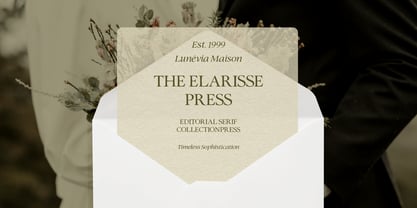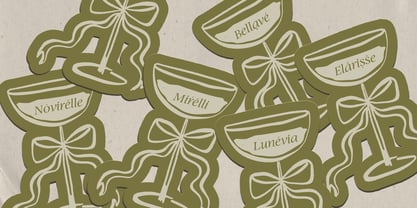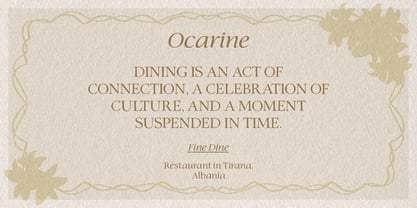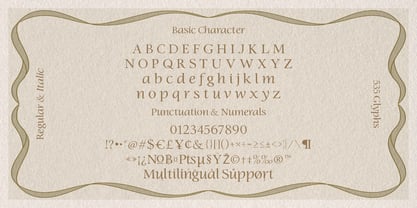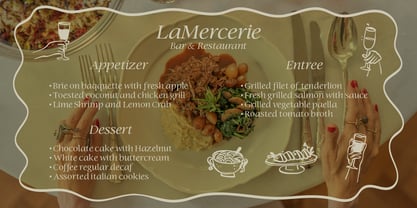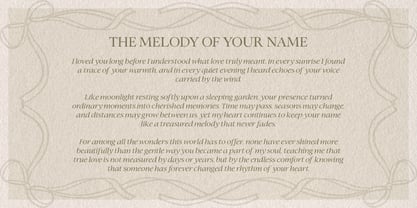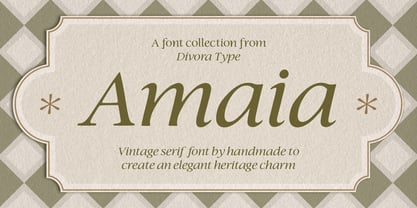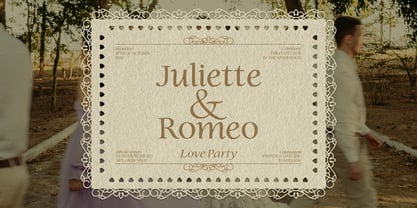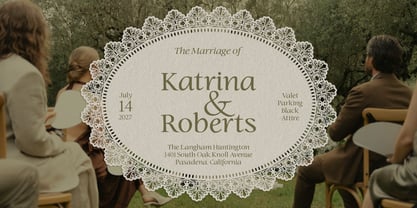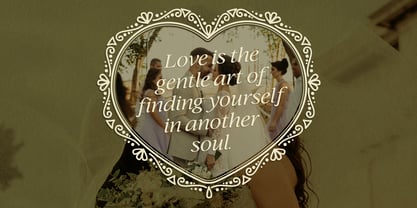
Amaia
by Divora Type
The Amaia Font Family was designed by Dhian Tri Antono and published by Divora Type. Amaia contains 2 styles and family package options. More about this family
Amaia is a vintage serif typeface crafted to bring timeless elegance and heritage charm to your designs. Inspired by classic signage, antique labels, and refined editorial typography, Amaia combines graceful curves, soft details, and balanced proportions for a sophisticated yet approachable look.
Perfect for branding, packaging, editorial design, wedding stationery, boutique businesses, and luxury-inspired projects. Whether used as a striking headline or an elegant display font, Amaia adds character, warmth, and enduring style to every composition.
Features:
• Regular & Italic Styles
• 535 Glyphs
• Uppercase & Lowercase
• Numbers & Punctuation
• Multilingual Support
• OpenType Features
Perfect for branding, packaging, editorials, invitations, labels, and heritage-inspired designs. ✨
Designers: Dhian Tri Antono
Foundry: Divora Type